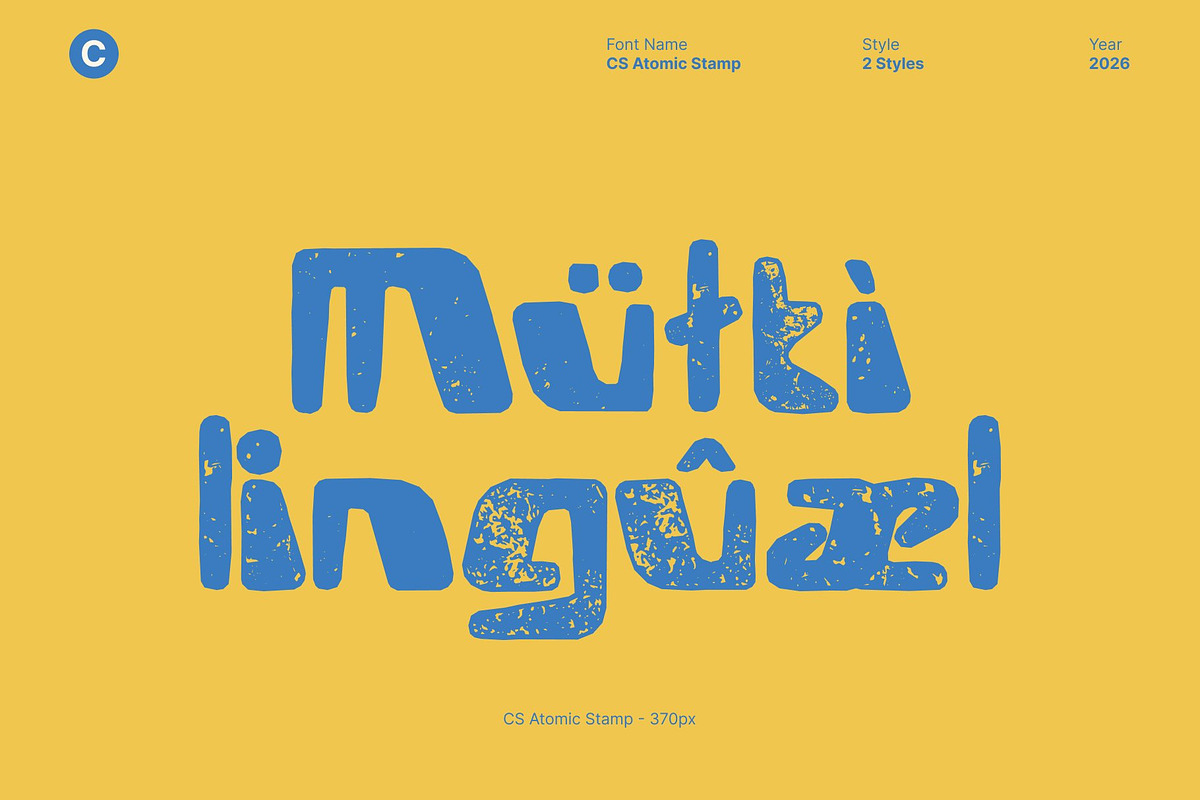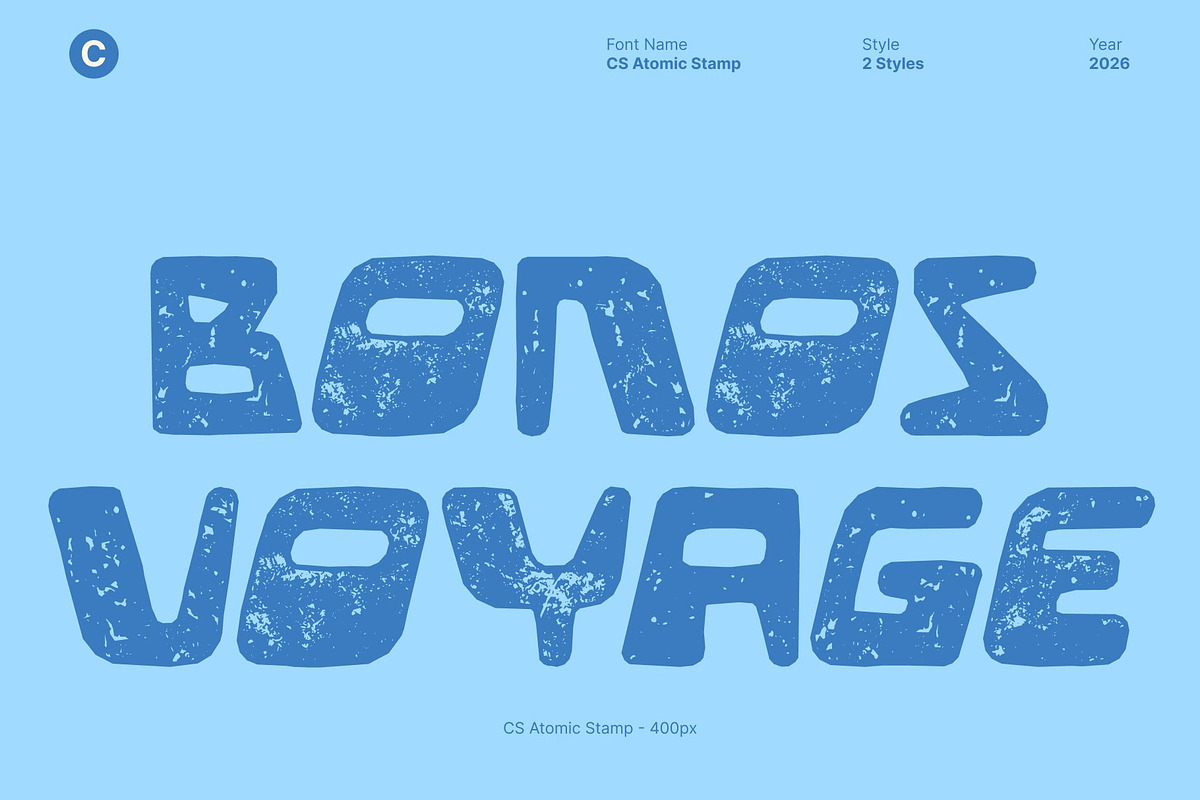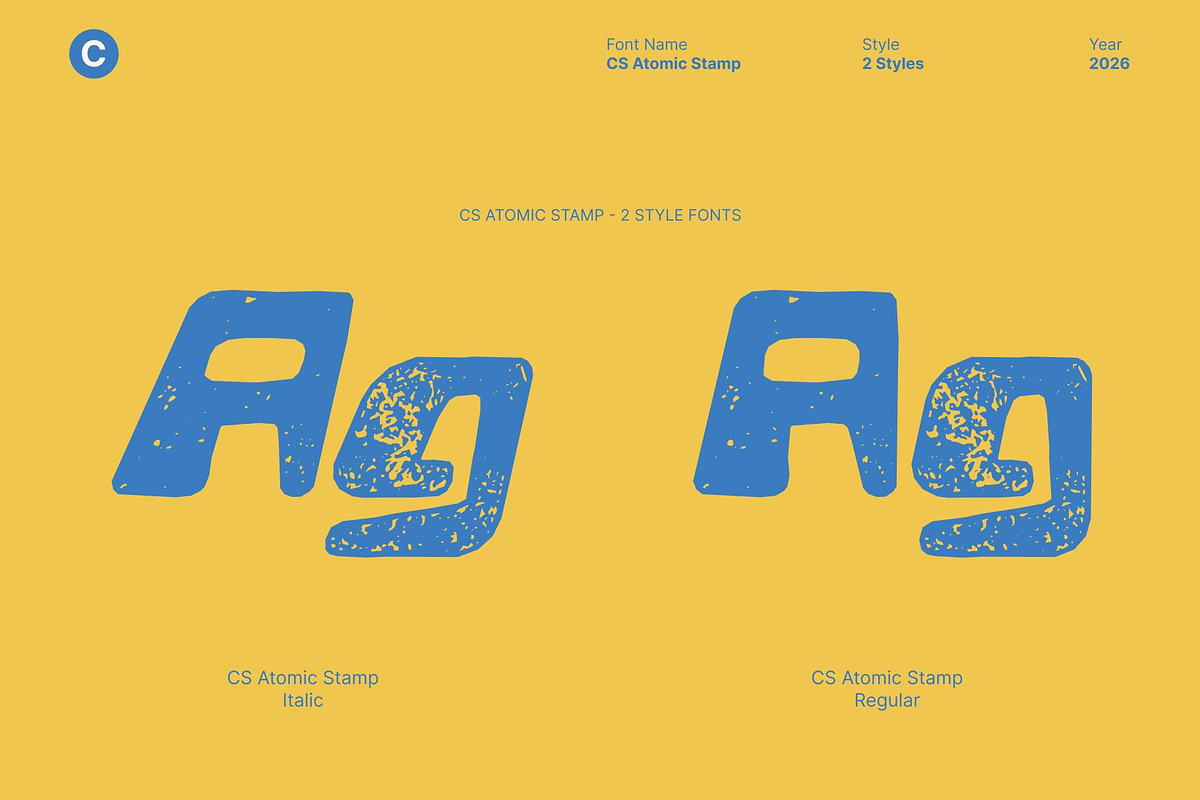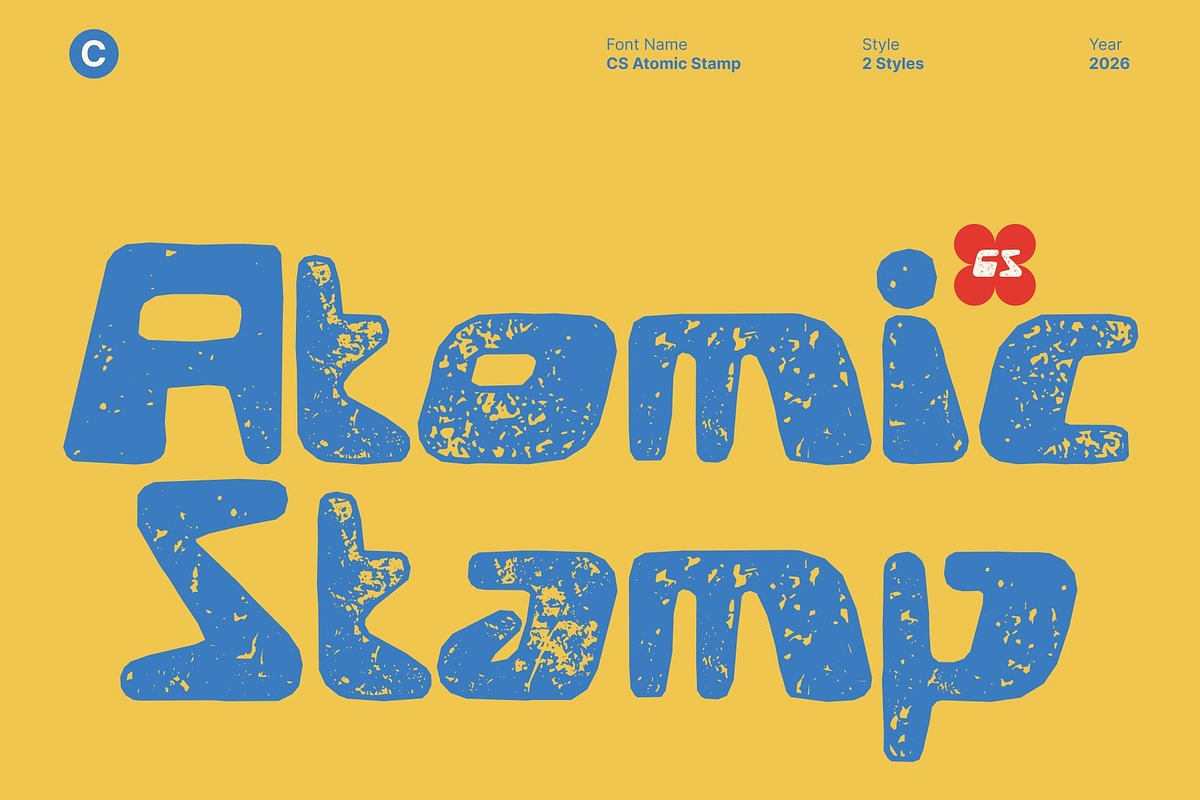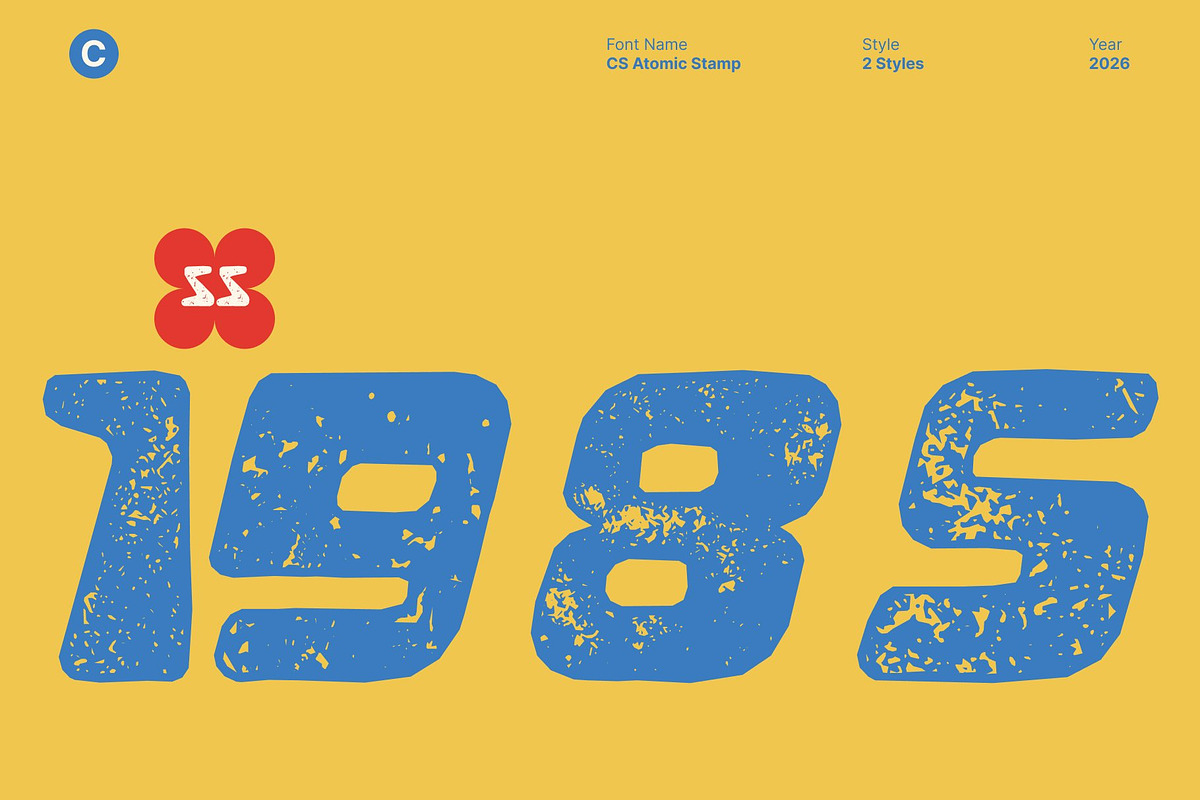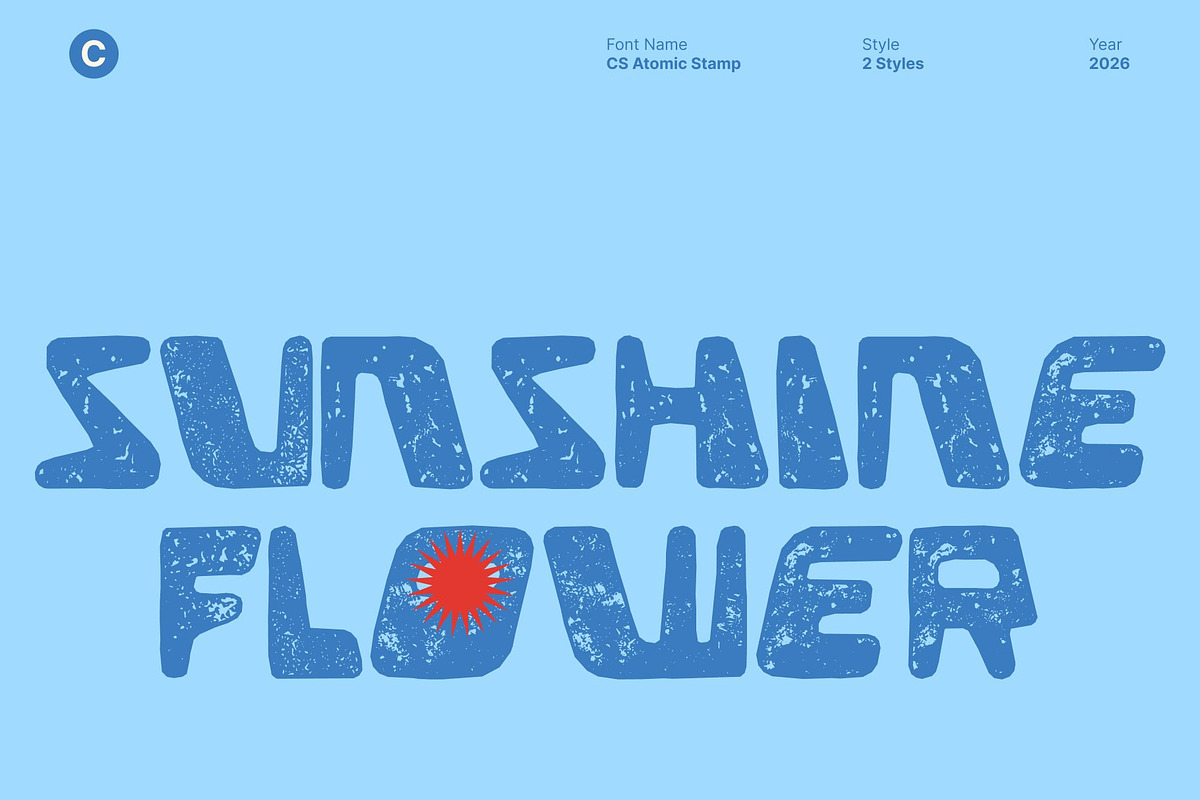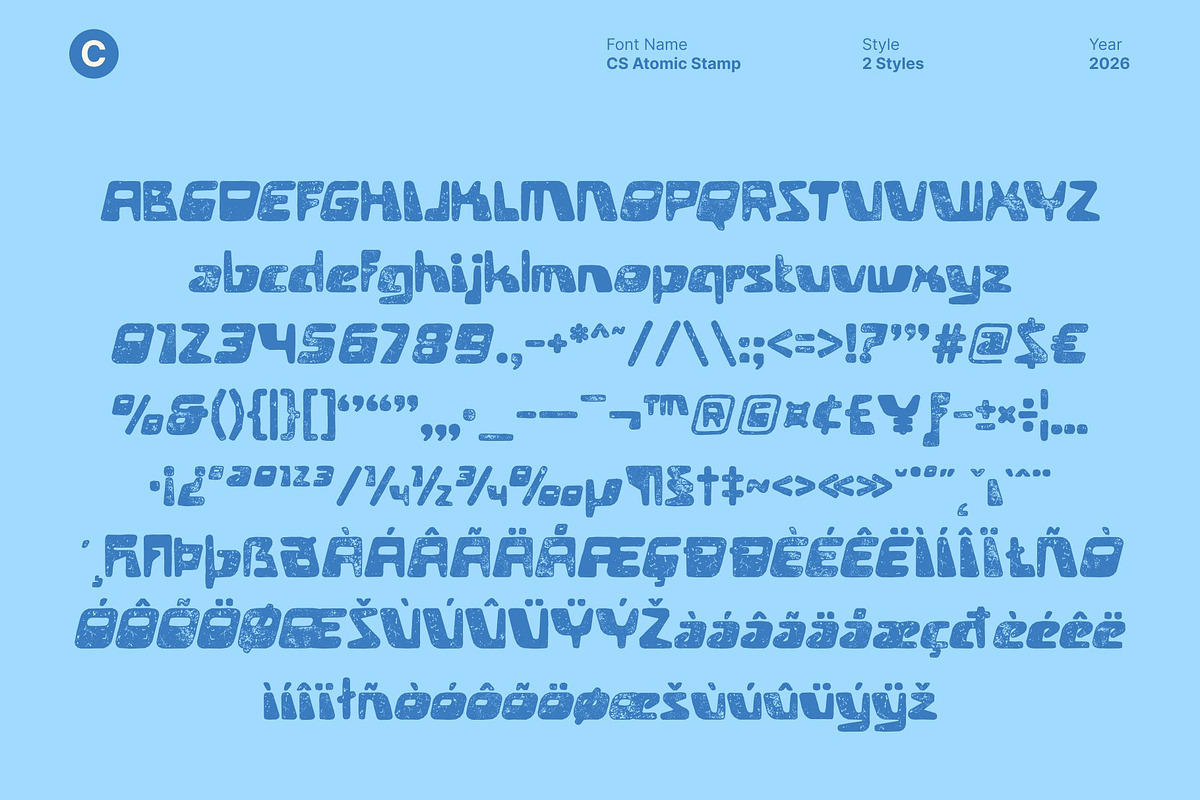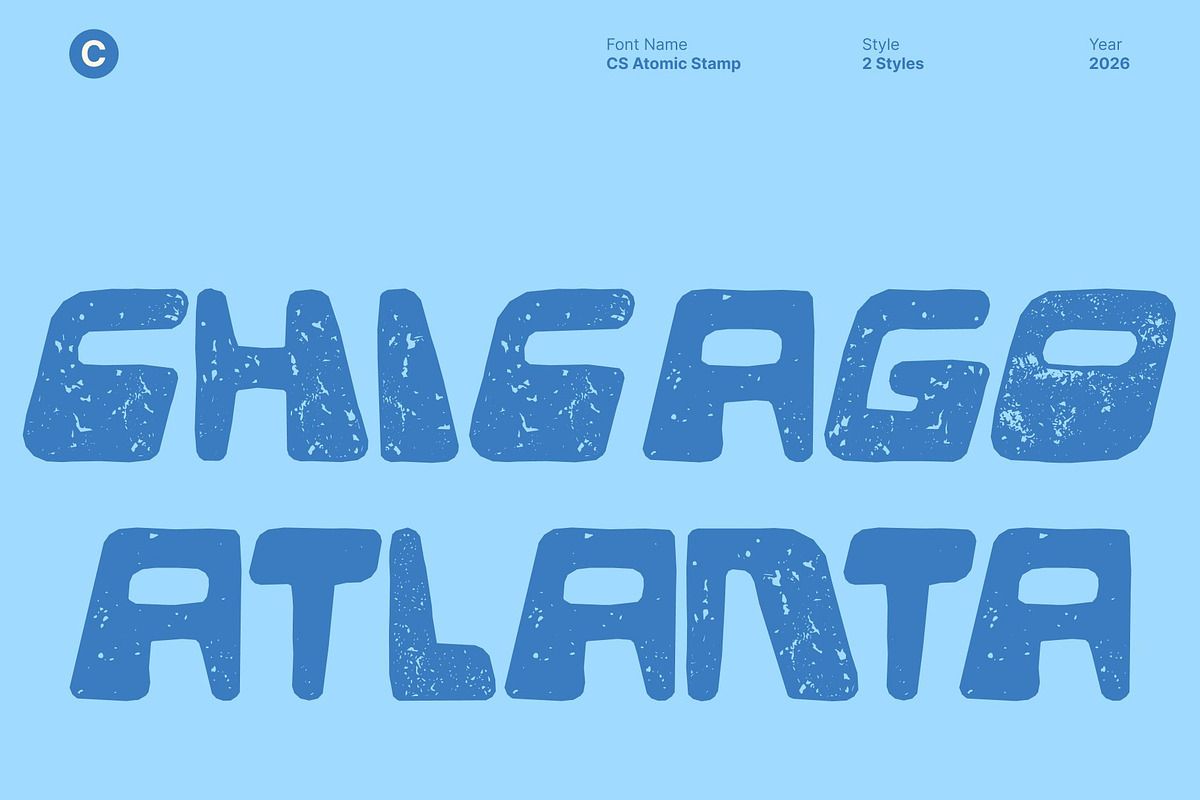
CS Atomic Stamp
CS Atomic Stamp – A Bold Retro-Futuristic Statement
Y2K Energy with Bold, Funky Flair This is a bold display font inspired by the iconic Y2K aesthetic, featuring playful curves, chrome-influenced shapes, and a retro-digital attitude. Its expressive, exaggerated letterforms channel the vibrant and experimental spirit of the early 2000s perfect for creating nostalgic visuals with a sharp modern edge.
Futuristic Nostalgia Meets Creative Expression Blending bubble forms, glitch-inspired details, and chrome-like energy, this font captures the tension between digital optimism and pop-culture chaos. Every character feels dynamic and full of attitude, making this font ideal for designers who want to inject fun, rebellion, and tech-era vibes into their work.
Stamped Texture with Authentic Character Enhanced with a stamped style, this font features a rough, uneven texture that adds a tactile, vintage feel. This imperfect finish brings authenticity and personality, making designs feel raw, expressive, and full of character.
Perfect for Trendy, Experimental Projects This font thrives in expressive compositions that demand personality. Ideal for posters, labels, and branding that need a strong visual voice, this font balances nostalgia with innovation. More than just a typeface, this is a design experience energizing layouts, sparking curiosity, and celebrating the past while looking confidently toward the future.
CS Atomic Stamp Regular
CS Atomic Stamp Italic